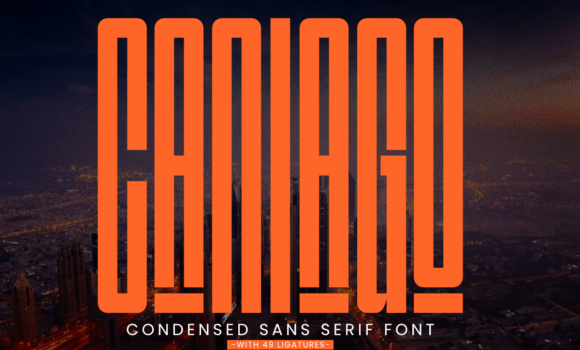
Caniago Font – Free Download Introduction to Caniago Font Caniago is a powerful, condensed sans serif font that blends modern minimalism with urban strength. 📸 Preview Gallery 6 images 📌 Product Name Caniago Font 👤 Author Funtype Co. 📂 Category